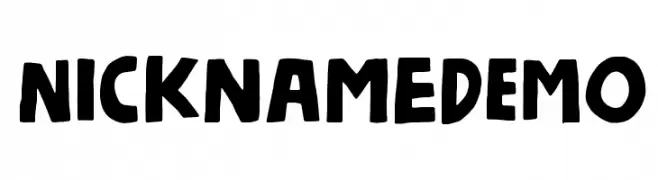
A classic serif font with elegant curves and balanced proportions.
A modern, clean sans-serif font with balanced spacing and consistent stroke width.
A clean, modern sans-serif font with geometric influences and excellent readability.
A modern, clean font with excellent readability and elegant curvature.
A bold, playful font with a retro aesthetic and rounded characters.
A playful, bold font with rounded, whimsical characters.
A playful, handwritten font with smooth curves and a casual style.
A playful, hand-drawn font with bold, cartoon-like characters and outlined letters.
A whimsical, hand-drawn font with playful, quirky elements and spiral motifs.
A bold, geometric font with angular, structured letterforms and a modern aesthetic.
A geometric, angular font with an oblique slant for a dynamic, modern look.
A playful, hand-drawn font with a whimsical and informal style.
A geometric, futuristic font with angular, modular letterforms and consistent line weight.
A geometric, futuristic font with sharp angles and a modular structure.
A geometric, futuristic font with sharp angles and a structured design.
A geometric, futuristic font with angular, blocky letterforms.
A bold, Gothic-inspired font with sharp, angular characters and a strong vertical emphasis.
A bold, modern blackletter-inspired font with strong vertical lines and sharp angles.
A playful, handwritten font with a casual and whimsical style.
A classic serif font with high contrast and elegant details, perfect for refined designs.
A playful handwritten font with smooth, flowing lines and a casual style.
A playful, bold font with rounded, hand-drawn characters.
A playful, dripping font with a bold, cartoonish style.
A bold, serif font with strong, thick strokes and a classic, authoritative style.
A playful, handwritten-style font with rounded, consistent strokes.
A playful, handwritten-style font with rounded, informal characters.